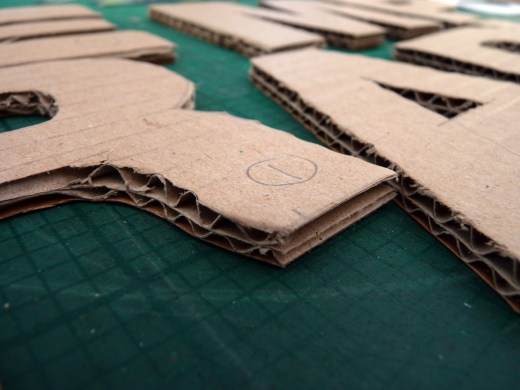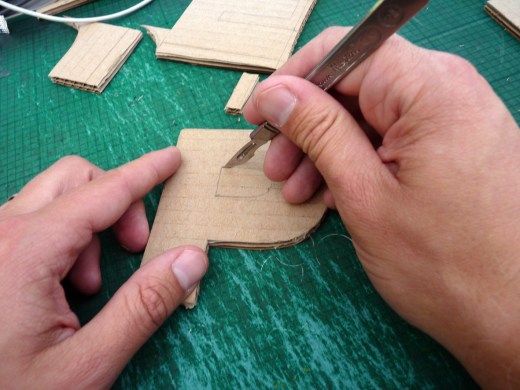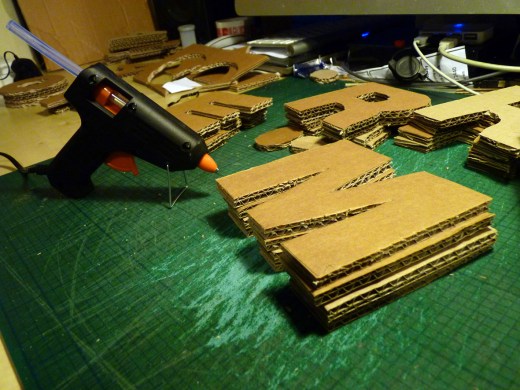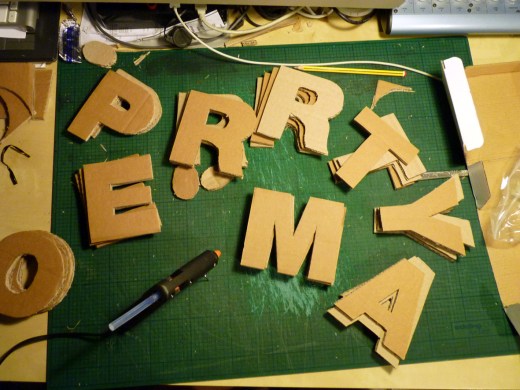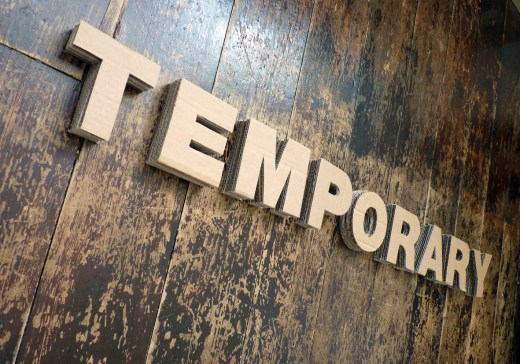
‘Temporary’ by Anthony Peters
“Many of the words picked by contributing artists for this project are celebratory, my first word is quite the opposite, A reflection on the homeless ‘culture’ and the existence of the homeless beneath the noses of the daily grind. Everything is temporary when you get moved on, when you nomadically source food, shelter and friendship. The material (cardboard) reflects a material used as shelter and as a ‘padding’ to buffer the hard cold concrete beds which many people sleep on in the city that never sleeps. Cardboard itself is temporary, ideally this piece of typography would be exhibited in a city doorway, to be poached and weathered until it is no more.”
An obsession with creating a narrative using minimal graphic techniques and a limited colour palette is at the heart of Anthony’s work. This approach has won him an array of work with clients such as New Scientist, Fab, Nobrow, HSBC, Macmillan Cancer Charity, Okido Magazine, John Lewis and GQ magazine. His work has been exhibited in London, Los Angeles, New York, Milan and Paris and he is a long time collaborator with Print Club London, with whom he has exhibited since 2009.
“I would rather make bad work and learn from it then make safe work over and over again because it was successful in the past. To me, experimentation and mistakes are an important part of the creative process.”
‘Temporary’ by Anthony Peters will be displayed at Type Tasting with the London Design Festival 2013 at the V&A.